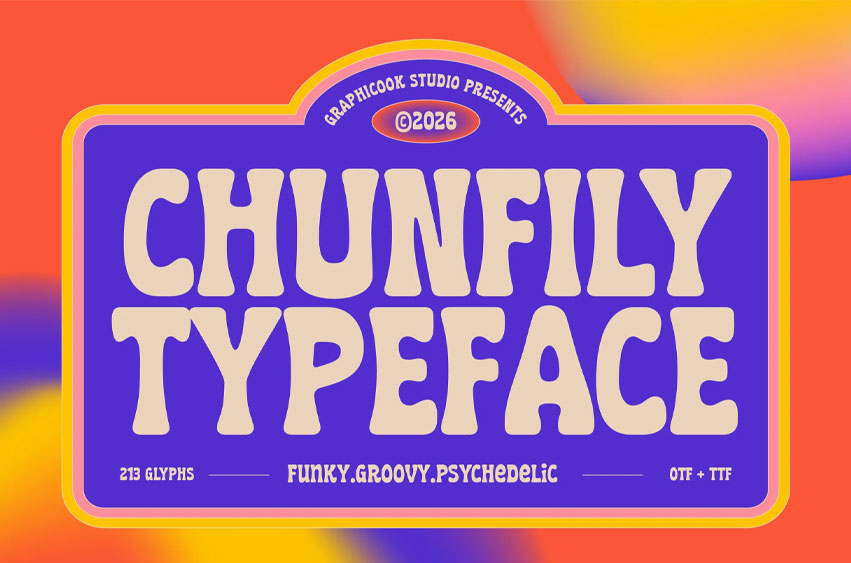
Chunfily Font
Chunfily Font is a funky, groovy, psychedelic font inspired by the retro aesthetics of the ’70s.
Its bold letterforms, soft curves, and playful personality create a vibrant and nostalgic visual style—perfect for music posters, fashion branding, packaging, festival artwork, album covers, social media content, and retro-inspired editorials.
It is perfect for headlines, logotypes, magazines, packaging, quotes, movies, games, cover albums, book covers, and flyers, it’s a perfect solution for creating eye-catching designs that stand out in any context.